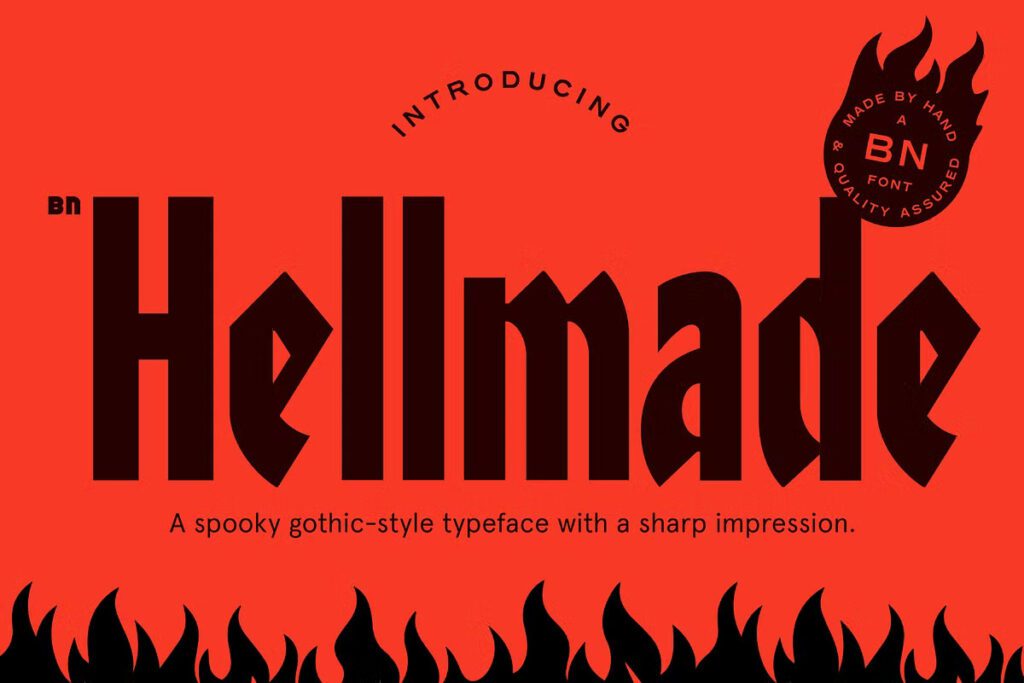
BN Hellmade – The Typeface for Dark and Mysterious Designs
Looking for a font that brings out the eerie and mysterious? Introducing BN Hellmade, a bold, gothic typeface that captures a chilling, unforgettable vibe. Whether you’re working on haunted house posters, horror movie titles, or bold designs needing a sharp impact, Hellmade is the perfect fit.
Why BN Hellmade Stands Out
Bold Gothic VibeBN Hellmade delivers a powerful gothic aesthetic with its angular lines and bold design. Perfect for capturing dark and ominous atmospheres, this font instantly sets the tone for chilling experiences. Whether it’s for print or digital, Hellmade commands attention.
Perfect for Halloween and Horror DesignsFrom haunted house posters to horror movie titles, BN Hellmade makes your project stand out with its edgy, sharp letterforms. The font is perfect for any spooky event or design that requires an eerie, unforgettable vibe.
Unforgettable ImpactHellmade’s boldness gives it a striking presence. Its angular, sharp edges create a visually captivating look that leaves a lasting impression on your audience. Whether you’re crafting branding for a gothic-themed project or designing invitations for a Halloween event, Hellmade ensures your message stands out.
Key Features of BN Hellmade
Bold, Gothic Typeface: Perfect for capturing dark, eerie, and mysterious themes.
Angular Letterforms: Adds a sharp and impactful look to your design.
Ideal for Spooky Projects: Works seamlessly for horror movie titles, Halloween posters, gothic branding, and more.
Unmatched Versatility: Whether used in digital or print projects, Hellmade fits perfectly in any design that needs an unforgettable, eerie presence.
Perfect For
Haunted House Posters: Set the stage for spooky events with Hellmade’s bold, angular design.
Horror Movie Titles: Give your film titles a gothic touch that resonates with the eerie atmosphere of your content.
Halloween Branding: Perfect for Halloween flyers, banners, and social media graphics, adding that extra bold and chilling edge.
Event Invitations: Ensure your event stands out with a typeface that embodies mystery and boldness.
BN Hellmade isn’t just another gothic typeface. It’s a bold, visually striking font that adds drama and mystery to every design. Elevate your horror-themed projects with Hellmade’s sharp and captivating letterforms.